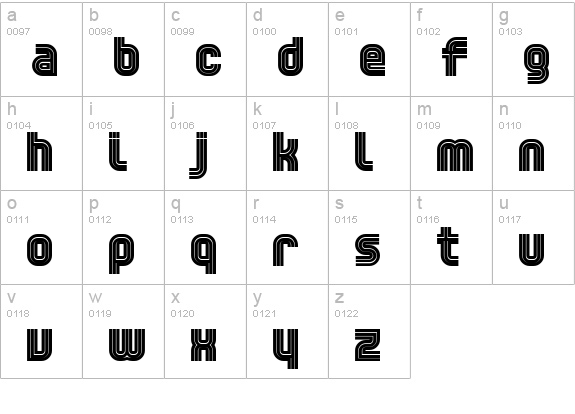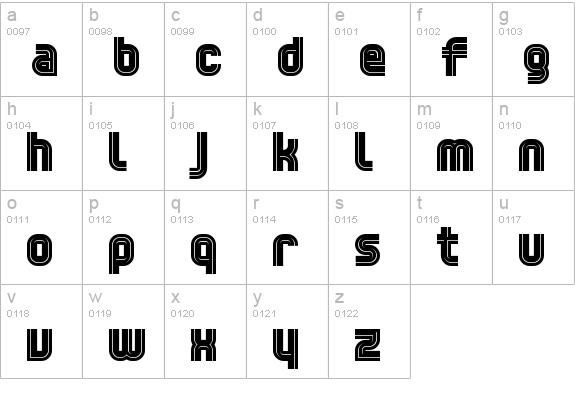
Trisect Black is a maximum-weight, dramatic variant in the Trisect typeface family \xE2\x80\x94 well suited to maximum-impact headlines, posters, and packaging.
Trisect Black font is a stunning display typeface that is sure to make a bold statement in any design project. With its sharp edges and strong geometric forms, this font exudes a sense of modernity and sophistication. It is the ideal choice for headlines, logos, posters, and any other creative endeavor that calls for a touch of elegance and power. What sets Trisect Black font apart is not only its striking appearance but also its versatility. Whether you're working on a sleek corporate presentation or a cutting-edge website design, this font will effortlessly adapt to any context, adding a touch of professionalism and style. Its bold and commanding presence will captivate your audience and leave a lasting impression. But what makes Trisect Black font truly special is that it is freely available to download at FontsMarket.com. Yes, you read that right - this incredible font can be yours without any cost. FontsMarket.com is the go-to destination for designers and typographers looking for high-quality fonts, and Trisect Black font is just one of the many treasures you can find there. So, why wait? Don't miss out on the opportunity to enhance your creative projects with this remarkable typeface. Download Trisect Black font today and transform your designs into masterpieces that will leave a lasting impact. Whether you're a professional designer or an aspiring artist, this font will undoubtedly become an invaluable tool in your creative arsenal. Experience the freedom and beauty of Trisect Black font, available only at FontsMarket.com.